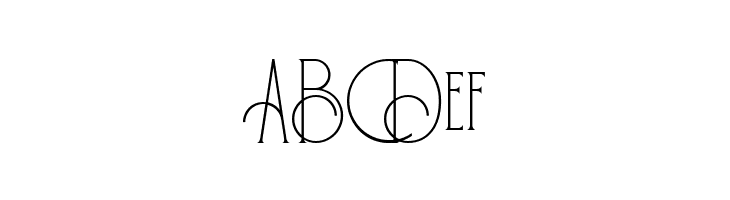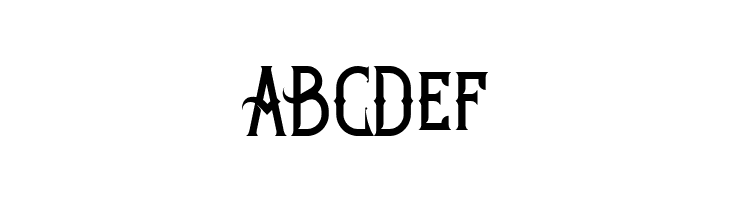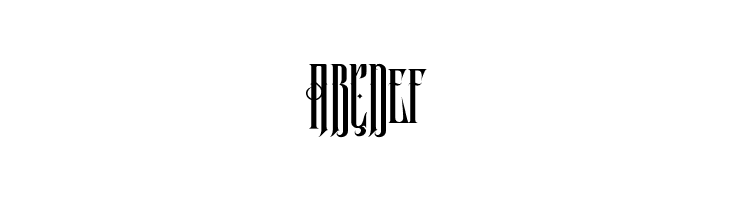
Wolfgang Font
Deni Dessastra - www.behance.net/The-sastra
An ornate Blackletter-style font with intricate details and sharp serifs.
Blackborneo Font
An ornate and decorative font with elongated serifs and intricate details.
NoiseStorm Light Font
A tall, narrow font with elongated, thin letterforms and a modern aesthetic.
Jhoony richmond Font
A decorative and geometric font with elongated, slender letterforms.
Khatulistiwa Font
A bold, Gothic-inspired font with sharp serifs and dramatic styling.